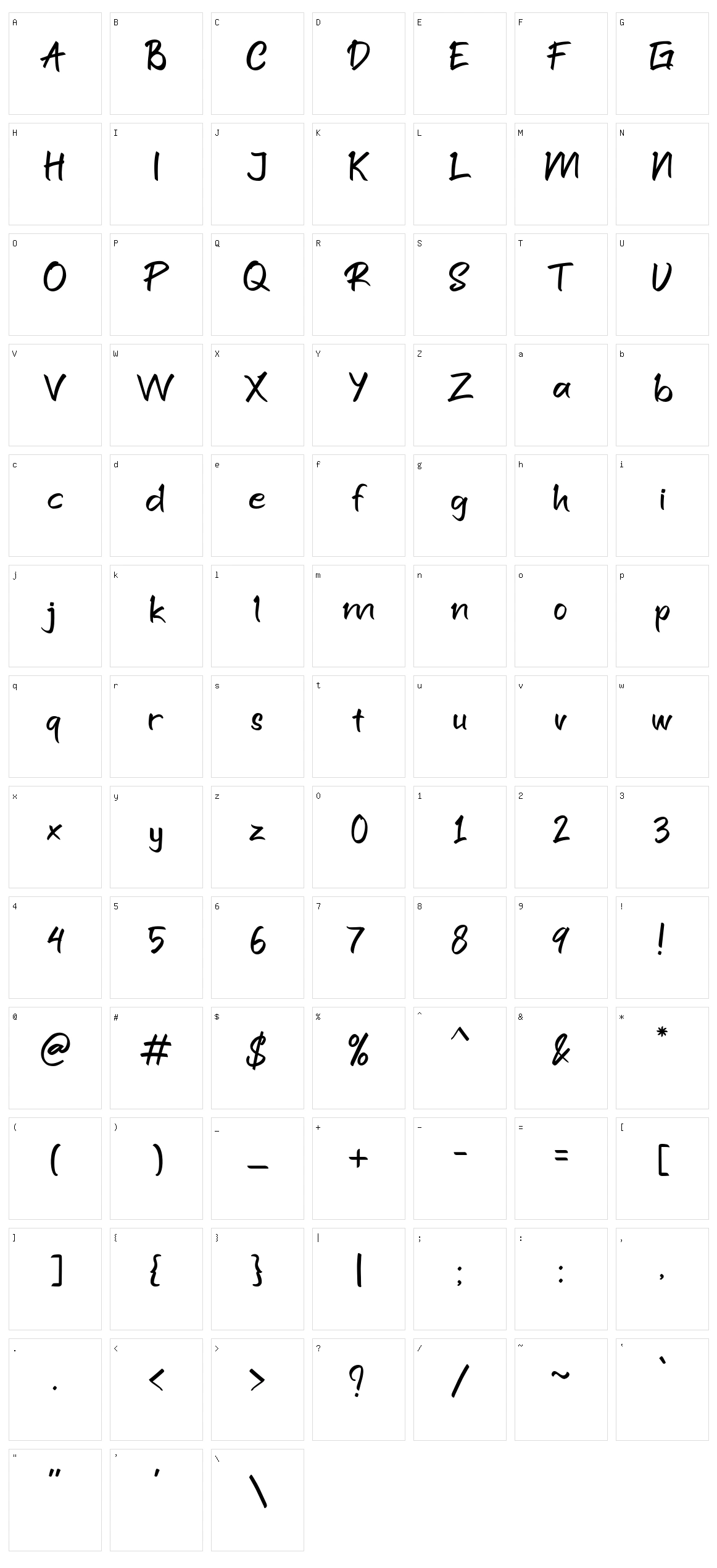
The free font Santuy is carefully designed by Monoco Type Foundry, showcasing a thoughtful balance of creativity and usability and falls under the Script font style. When you download the ZIP file, it contains only 33.46 KB of font files, making it lightweight and quick to download. Please review the license details below to understand permitted usage and distribution rights. If license information is not available, we recommend using this font for personal projects only or contacting the author directly for commercial usage permissions.